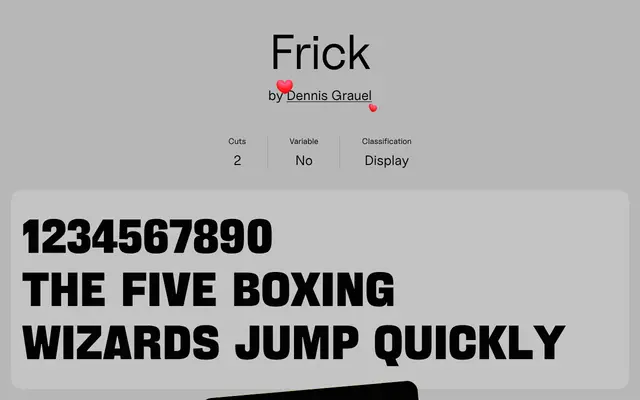
Frick
Frick comes in two cuts and is designed for display-scale use. Released by Dennis Grauel under the SIL Open Font Licence 1.1, it permits commercial use, modification and redistribution with some conditions. The family is non-variable and keeps a small, focused footprint suited to headline and poster work.
Classified as Display by the foundry; the name and descriptor suggest a decorative or experimental typeface intended for headline and large-scale use rather than continuous text.